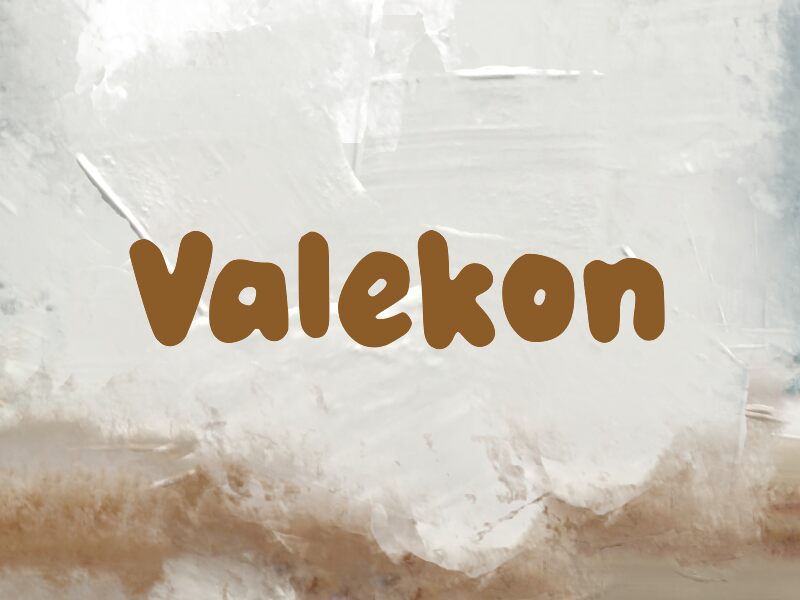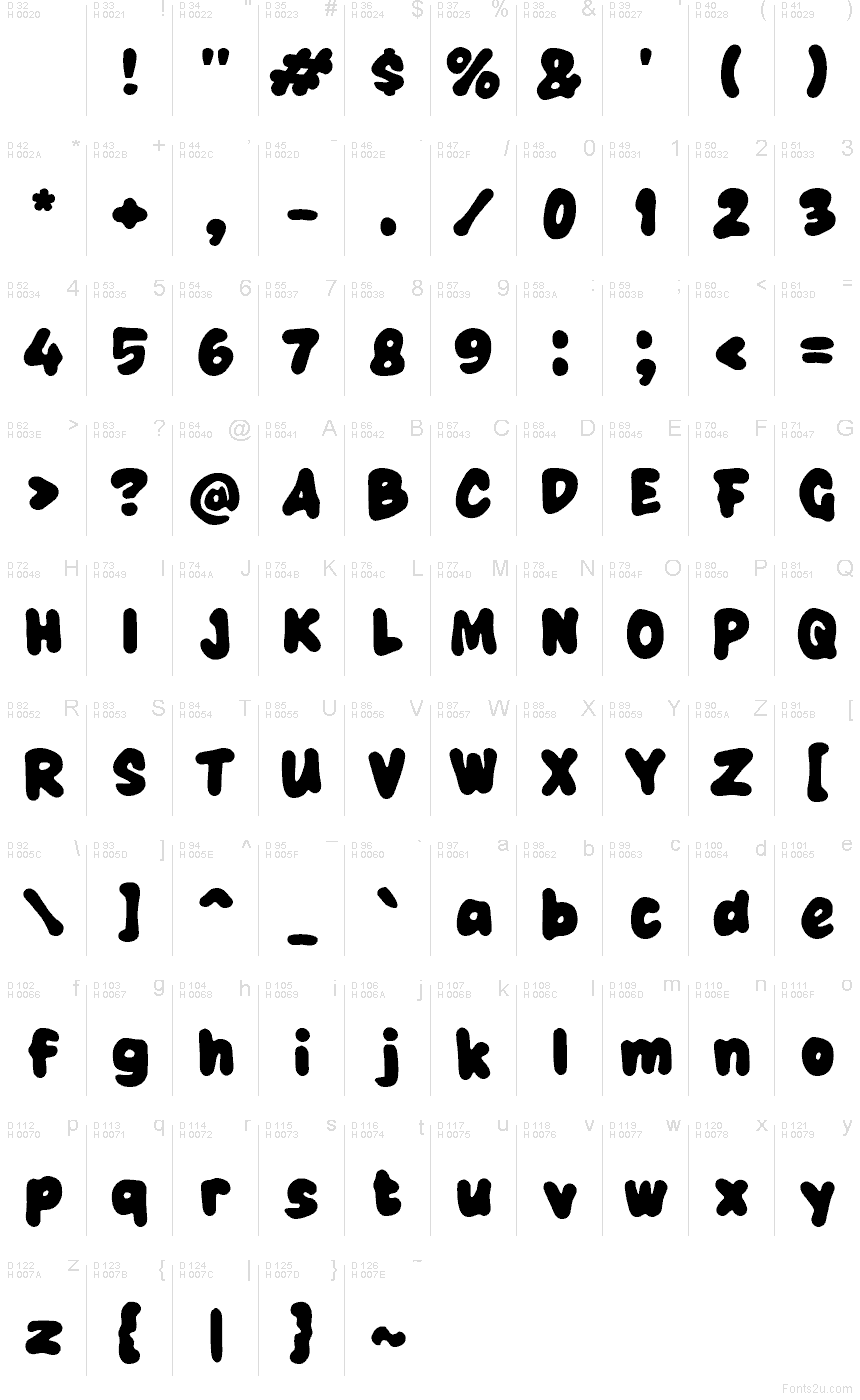
Valekon
Valekon font by wep is a free cartoon display typeface with big, blobby letters that feel hand-squeezed from a marker. The chunky shapes and soft curves create a playful, bouncy rhythm that reads clearly even at a quick glance, while the tight, inky forms give headlines a bold, friendly punch. There’s a slightly uneven, doodled energy here that makes your text feel like it was drawn right onto a comic panel or poster.
Using Valekon, you can bring warmth and humor to kids’ book covers, YouTube thumbnails, snack packaging, comics, game titles, classroom posters, and party invites. This free font shines when set large and loud, letting its thick silhouettes do the talking. Pair Valekon with a clean geometric sans for body text to keep the fun lettering grounded and easy to read.